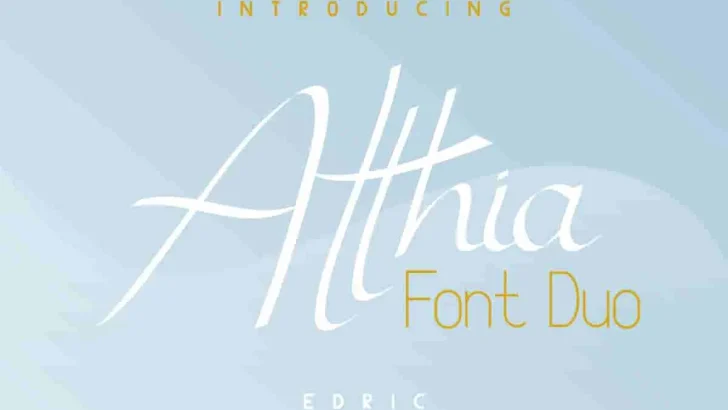
Atthia Calligraphy Style Font Duo
Atthia ! This is a new font family with 3 styles : Regular, Vintage and Sans Serif. This is a modern script calligraphic font From EdricStudio